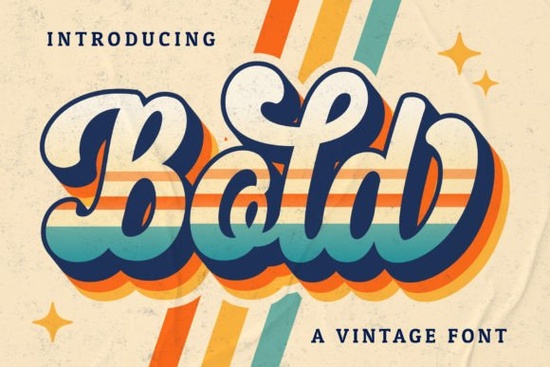
If you're looking for a script font that feels both bold and nostalgic something with personality but still easy to read at a glance you’ll likely enjoy Bold Script Font. It’s not overly ornate, but it carries that unmistakable vintage charm: think mid-century signage, hand-painted café menus, or retro wedding invites. Designers and small business owners often reach for it when they want warmth and character without sacrificing clarity.
What makes Bold Script Font different from other script fonts?
Unlike many script fonts that rely on delicate loops or ultra-thin strokes, Bold Script Font uses generous weight and confident curves. That means it holds up well even at smaller sizes like on product labels, social media thumbnails, or embroidered patches. Its PUA encoding is especially helpful if you’ve ever struggled to find alternate swashes or stylistic ligatures in other fonts. With this one, all the extras sit right where your keyboard expects them: no digging through glyph panels or custom installers.
You’ll notice subtle details too the slight taper on terminals, the gentle bounce in the baseline, and how letters like “g” and “y” have just enough flair without feeling fussy. It’s the kind of font that looks handmade but prints cleanly, whether you’re laser-cutting vinyl, screen-printing tote bags, or exporting PNGs for Instagram Stories.
Where does Bold Script Font work best?
This font shines in contexts where authenticity and approachability matter:
- Wedding stationery Save-the-dates, place cards, and ceremony programs gain instant warmth
- Small-batch branding Think coffee roasters, apothecaries, or local bakeries wanting a friendly, grounded identity
- Social graphics Works well over photos (especially with light overlays or textured backgrounds)
- Print-on-demand designs Holds up nicely on mugs, tees, and notebooks without needing heavy outlining or shadow effects
It pairs naturally with clean sans-serifs (like Montserrat or Inter) for contrast, or with other vintage-inspired typefaces when building layered compositions. If you like Astutely Font, you’ll appreciate how Bold Script Font offers similar energy but with more visual weight. And if you’ve used Bread and Butter Duo Font before, you’ll recognize the same thoughtful spacing but here, the rhythm feels a little bolder, a little more direct.
How to use it alongside other script fonts
Having a few versatile script fonts in your toolkit helps avoid repetition across client projects or seasonal product drops. For example, Misha Salma Font brings elegant, flowing energy great for feminine or luxury-leaning brands while Bold Script Font anchors things with grounded confidence. Pair them thoughtfully: use Misha Salma for headlines and Bold Script for subheads or callouts. Or swap in Milkshake Font for playful, bubbly moments (think kids’ party invites), then return to Bold Script for consistency across your brand’s core assets.
One thing to keep in mind: script fonts aren’t always ideal for long paragraphs or dense body copy. Stick to short phrases, titles, and accent text and always test legibility on the actual medium you’re designing for. A font that reads perfectly on screen might need slight kerning tweaks when printed on kraft paper or stitched onto fabric.
For comparison, if you're exploring options, Bold Script Font sits comfortably between the relaxed flow of Astutely Font and the structured elegance of Misha Salma Font. It’s less decorative than Milkshake Font, and more immediately usable than some ultra-narrow scripts that demand careful spacing.